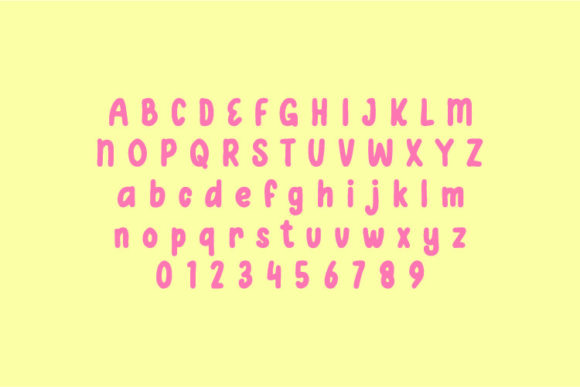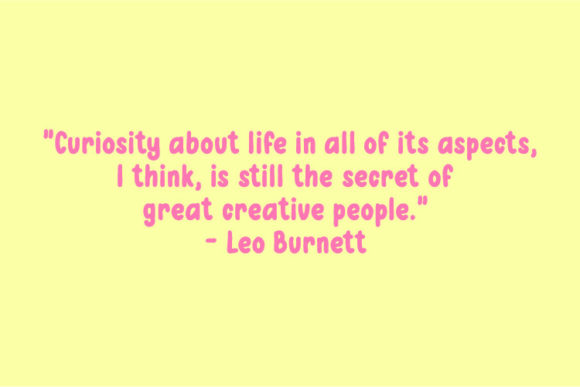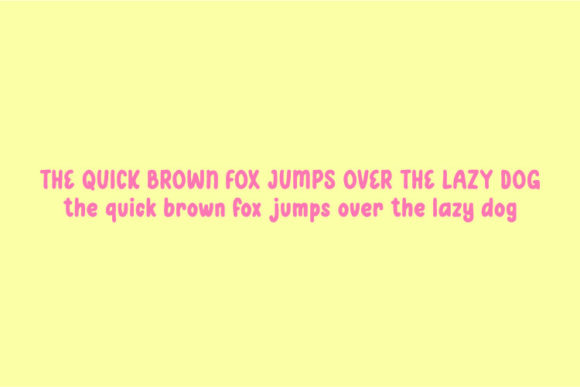
Cute Apricot Font: Elevate Your Designs with a Clean and Adaptable Display Font
Are you a designer or crafter looking for a font that can elevate your creations and make them stand out? Look no further than the Cute Apricot Font. This clean and adaptable display font is perfect for a wide range of design projects, from branding and advertising to crafting and DIY tutorials. In this article, we’ll take a closer look at the Cute Apricot Font and explore its features, benefits, and uses.
What is Cute Apricot Font?
Cute Apricot is a modern display font that is designed to be clean, elegant, and highly versatile. Its unique design makes it perfect for use in a variety of contexts, from headlines and titles to logos and branding materials. The font features a distinctive apricot-inspired aesthetic that is both playful and sophisticated, making it an excellent choice for designers and crafters who want to add a touch of personality to their work.
Key Features of Cute Apricot Font
So, what makes Cute Apricot Font so special? Here are some of its key features:
- Clean and Adaptable Design: Cute Apricot Font features a clean and adaptable design that makes it perfect for use in a wide range of contexts.
- Unique Apricot-Inspired Aesthetic: The font’s distinctive apricot-inspired aesthetic makes it stand out from other fonts and adds a touch of personality to any design.
- Highly Versatile: Cute Apricot Font is highly versatile and can be used in a variety of design projects, from branding and advertising to crafting and DIY tutorials.
- Elegant and Playful: The font’s design is both elegant and playful, making it perfect for designers and crafters who want to add a touch of sophistication and whimsy to their work.
Benefits of Using Cute Apricot Font
So, why should you choose Cute Apricot Font for your design projects? Here are some of the benefits of using this font:
- Enhance Your Creations: Cute Apricot Font has the potential to enhance any creation and make it stand out from the crowd.
- Save Time: With Cute Apricot Font, you can save time and effort by using a pre-designed font that is ready to use.
- Improve Readability: The font’s clean and adaptable design makes it easy to read and understand, even at small sizes.
- Add Personality: Cute Apricot Font’s unique apricot-inspired aesthetic adds a touch of personality to any design and makes it more engaging.
Uses of Cute Apricot Font
Cute Apricot Font is a highly versatile font that can be used in a wide range of design projects, including:
- Branding and Advertising: Use Cute Apricot Font to create eye-catching logos, headlines, and advertising materials that stand out from the crowd.
- Crafting and DIY Tutorials: Add a touch of personality to your crafting and DIY tutorials with Cute Apricot Font’s unique apricot-inspired aesthetic.
- Social Media Graphics: Use Cute Apricot Font to create engaging social media graphics that grab attention and drive engagement.
- Web Design: Cute Apricot Font is perfect for use in web design, from headings and titles to buttons and calls-to-action.
In conclusion, Cute Apricot Font is a clean and adaptable display font that is perfect for designers and crafters who want to elevate their creations and make them stand out. With its unique apricot-inspired aesthetic, highly versatile design, and elegant and playful feel, Cute Apricot Font is an excellent choice for a wide range of design projects. Whether you’re working on branding and advertising materials, crafting and DIY tutorials, or social media graphics and web design, Cute Apricot Font is sure to be a valuable addition to your font library.